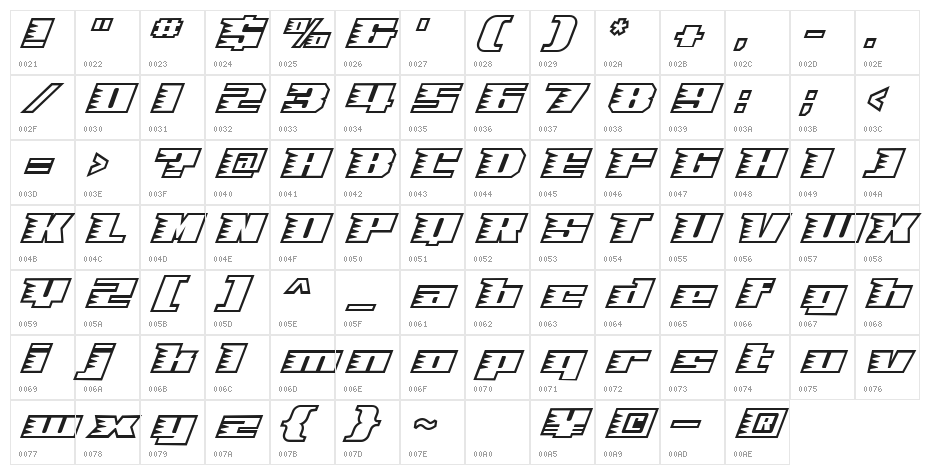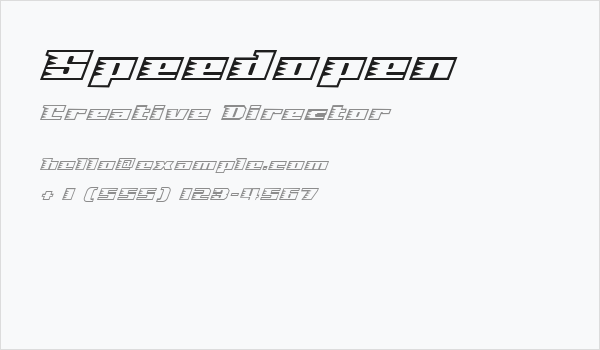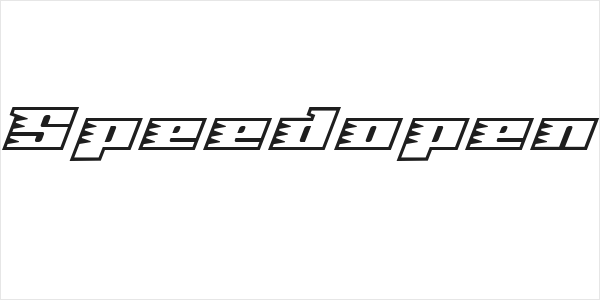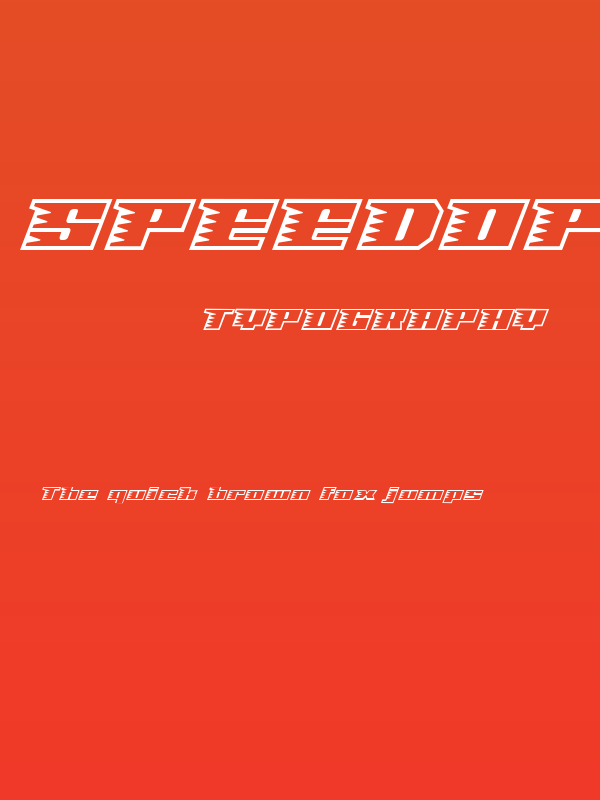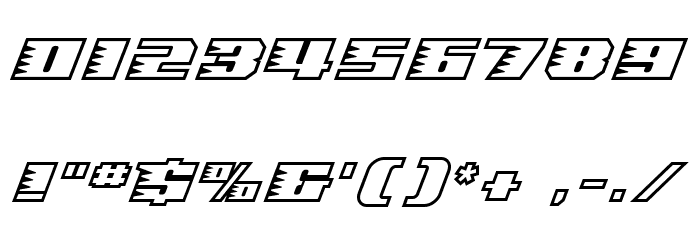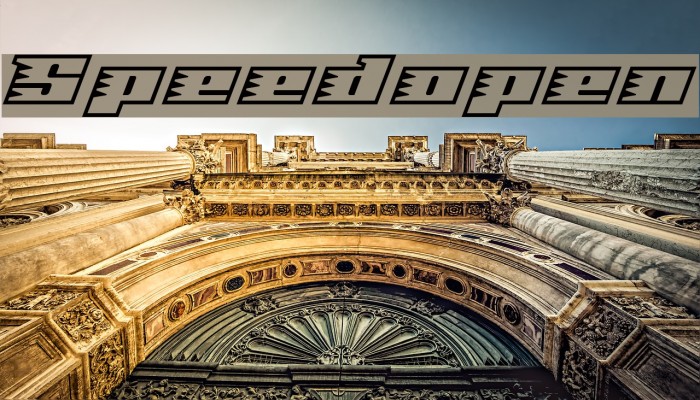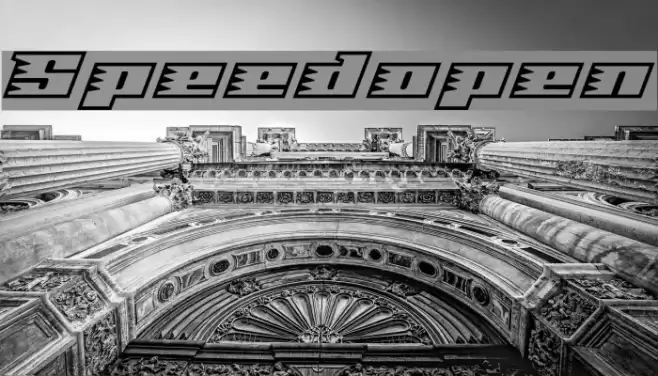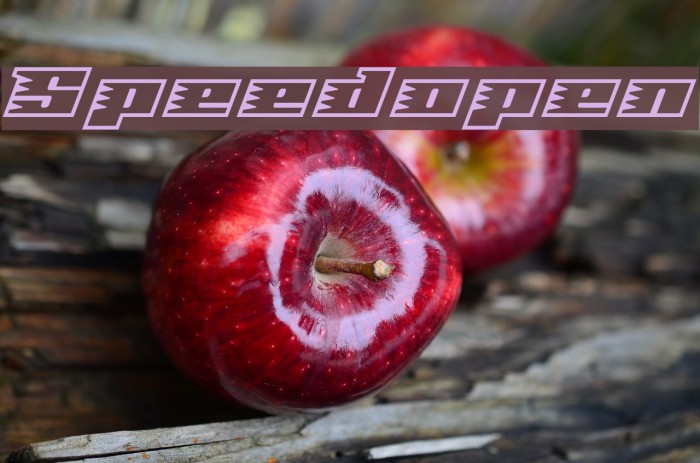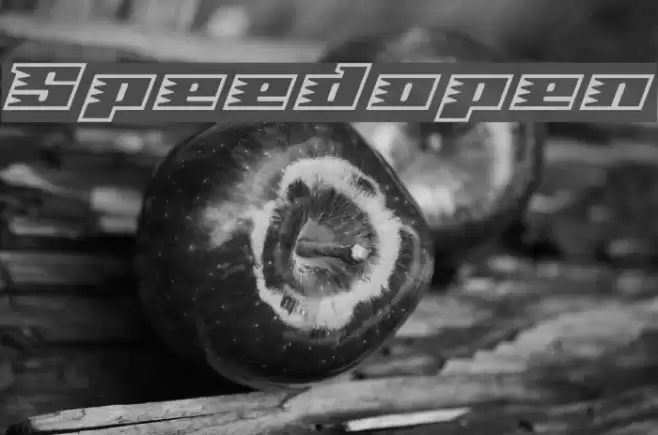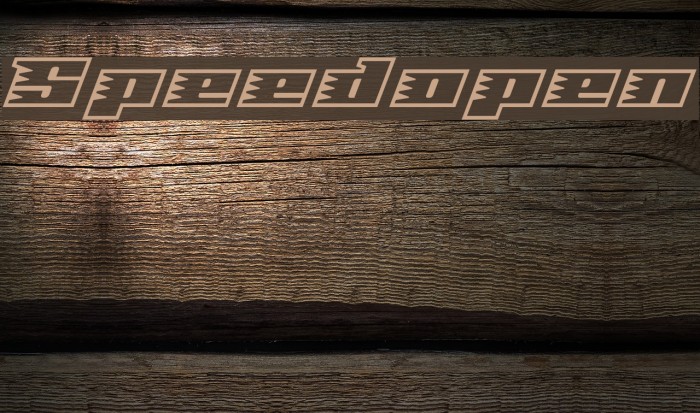
Speedopen Font
Speedopen Description
This font features a bold and dynamic style with a distinct, angular design. Each character is outlined with a thick, black border, giving it a strong presence. The interior of the letters is filled with a white space, creating a high contrast that enhances readability. The edges of the characters have a unique, jagged pattern that adds a sense of motion and energy, making it ideal for attention-grabbing headlines or logos. The uppercase and lowercase letters maintain a consistent style, while the numbers and special characters are designed to match the overall aesthetic. This font's boldness and unique design make it suitable for projects that require a modern and edgy look.
| Overall Style | Modern, Dynamic |
| Proposed Projects | Ideal for sports branding, action movie posters, video game titles, and dynamic logo designs. |